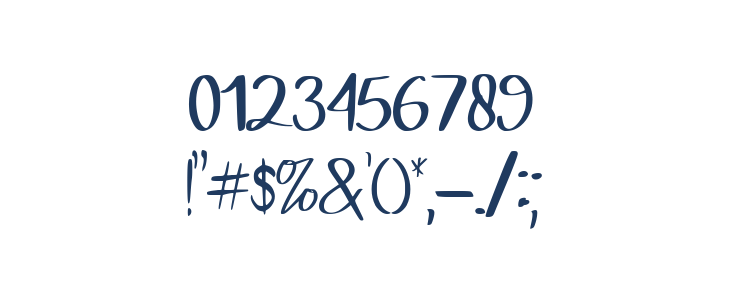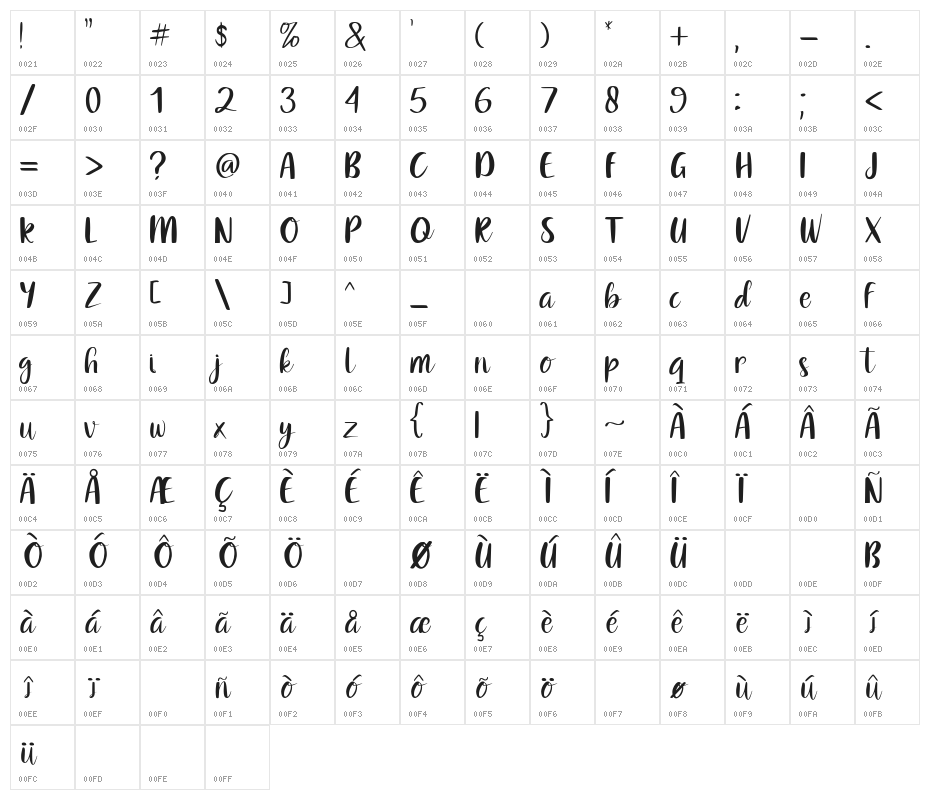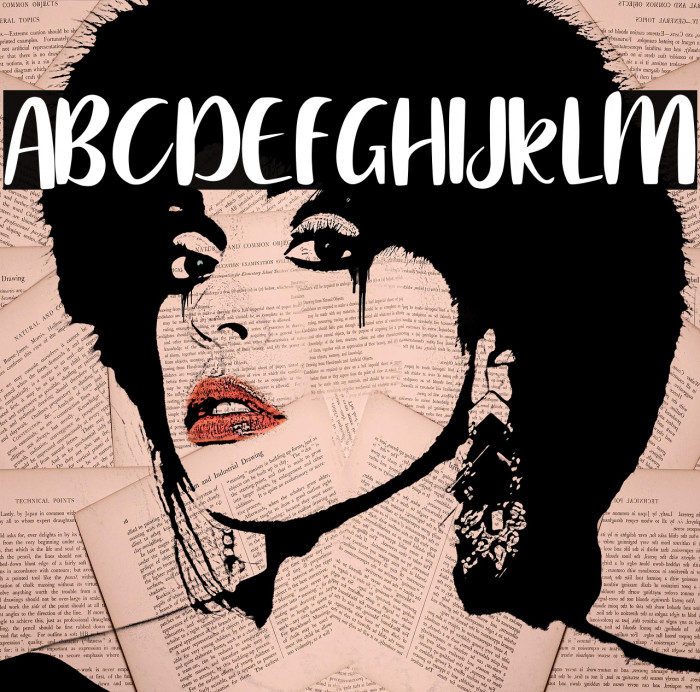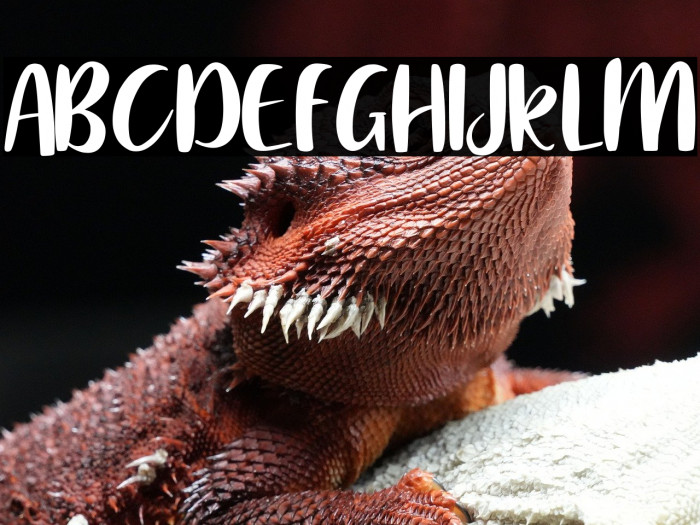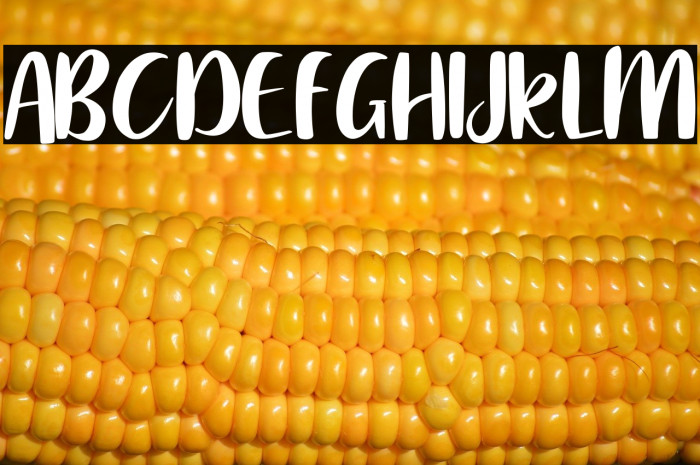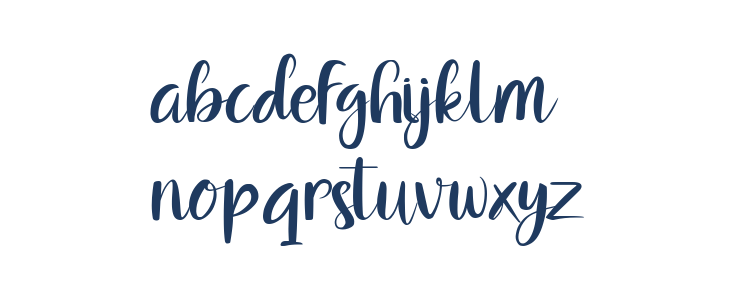
Water dolphin Font
Water dolphin Description
This font features a lively and expressive handwritten style, characterized by its fluid and dynamic strokes. The uppercase letters are bold and slightly condensed, giving a strong presence, while the lowercase letters maintain a playful and casual feel. The numerals are consistent with the overall style, offering a smooth and rounded appearance. Special characters are creatively integrated, maintaining the font's energetic vibe. The overall design is both modern and approachable, making it suitable for a variety of creative applications.
| Proposed Projects | Ideal for branding, social media graphics, invitations, and creative projects that require a personal touch. |